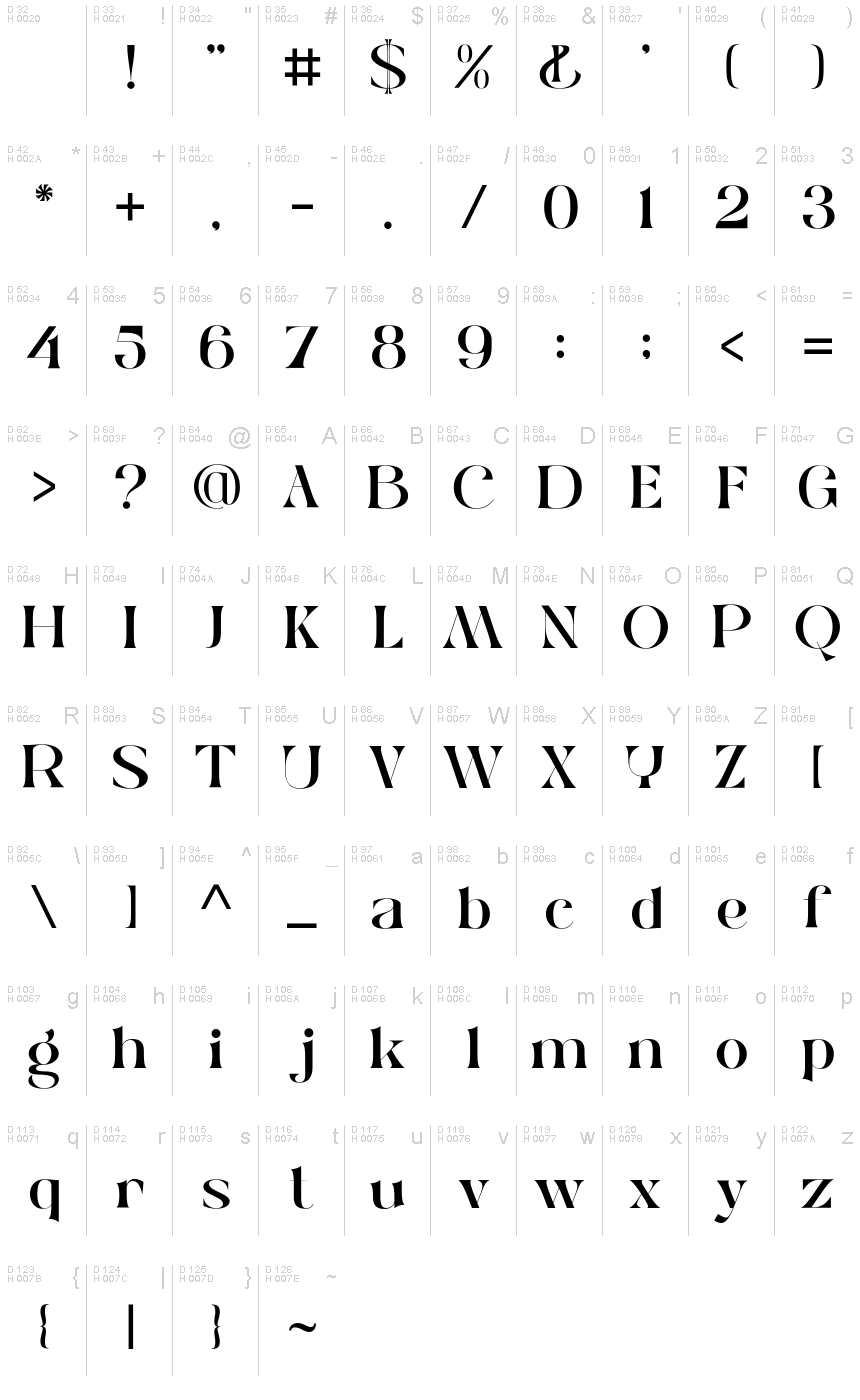
KOLAK
Kolak, a serif font designed by ToniStudio, exudes a timeless elegance with its refined, sophisticated lines. The strong, yet graceful letterforms captivate the eye, seamlessly blending traditional and modern aesthetics. Kolak's distinctive personality shines through its delicate serifs and subtle stroke contrast, creating an air of understated luxury. This font's versatility and visual appeal make it an excellent choice for a wide range of design applications.
Kolak's versatility allows it to thrive in various contexts, from high-end editorial layouts to impactful branding. Its classic charm lends itself well to prestigious publications, while its legibility ensures smooth readability in lengthy body text. Equally at home in digital and print environments, Kolak's timeless elegance can elevate everything from book covers to website headers, making it a valuable addition to any designer's toolkit.